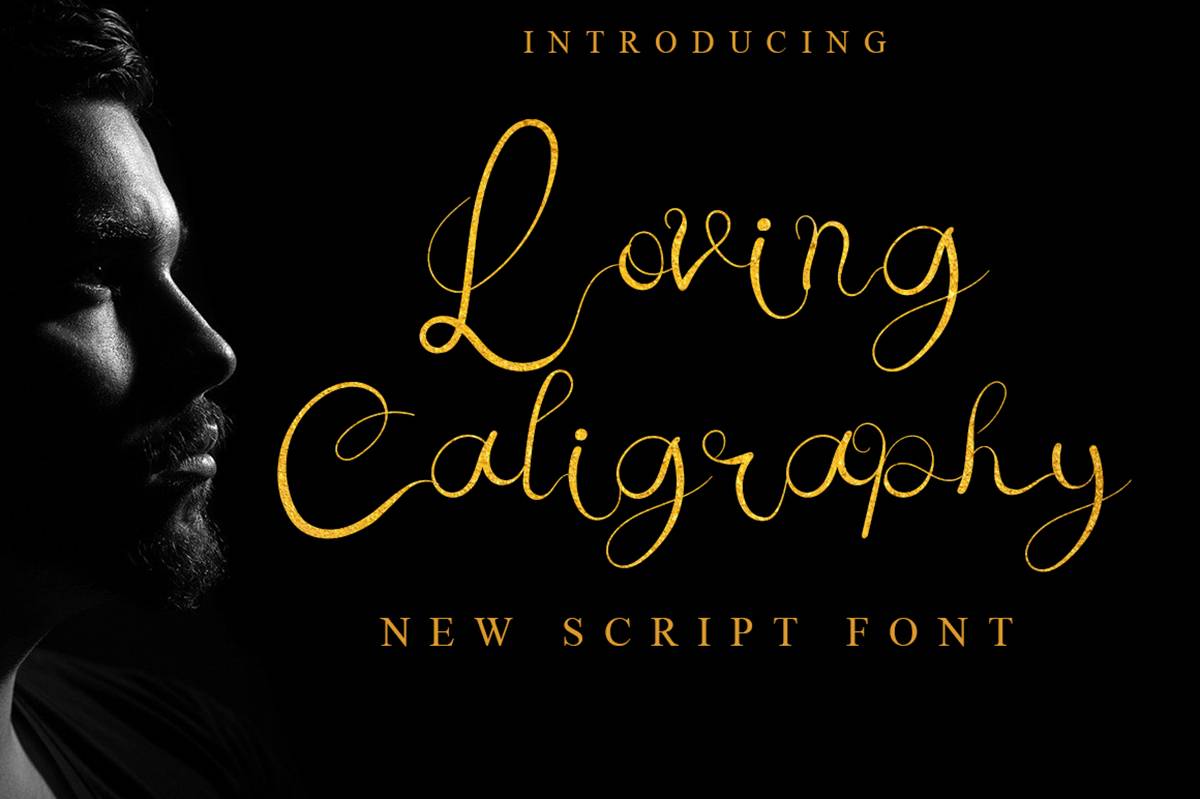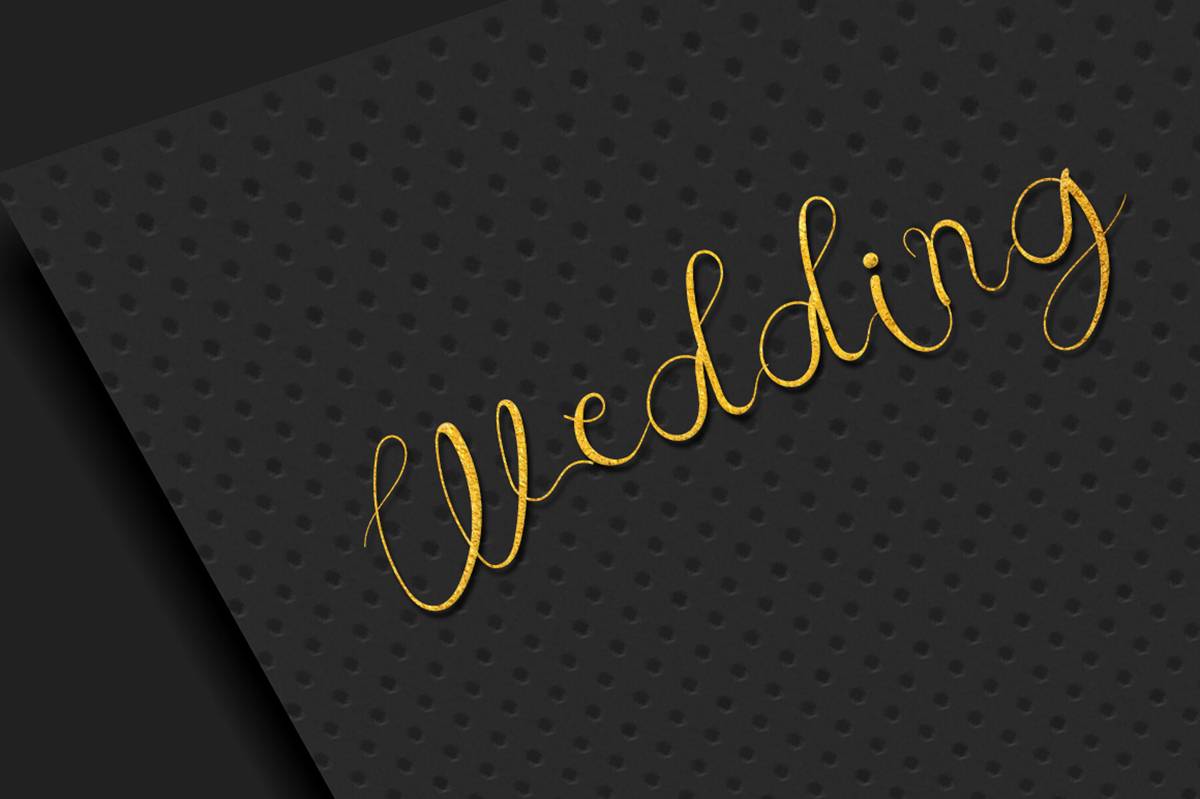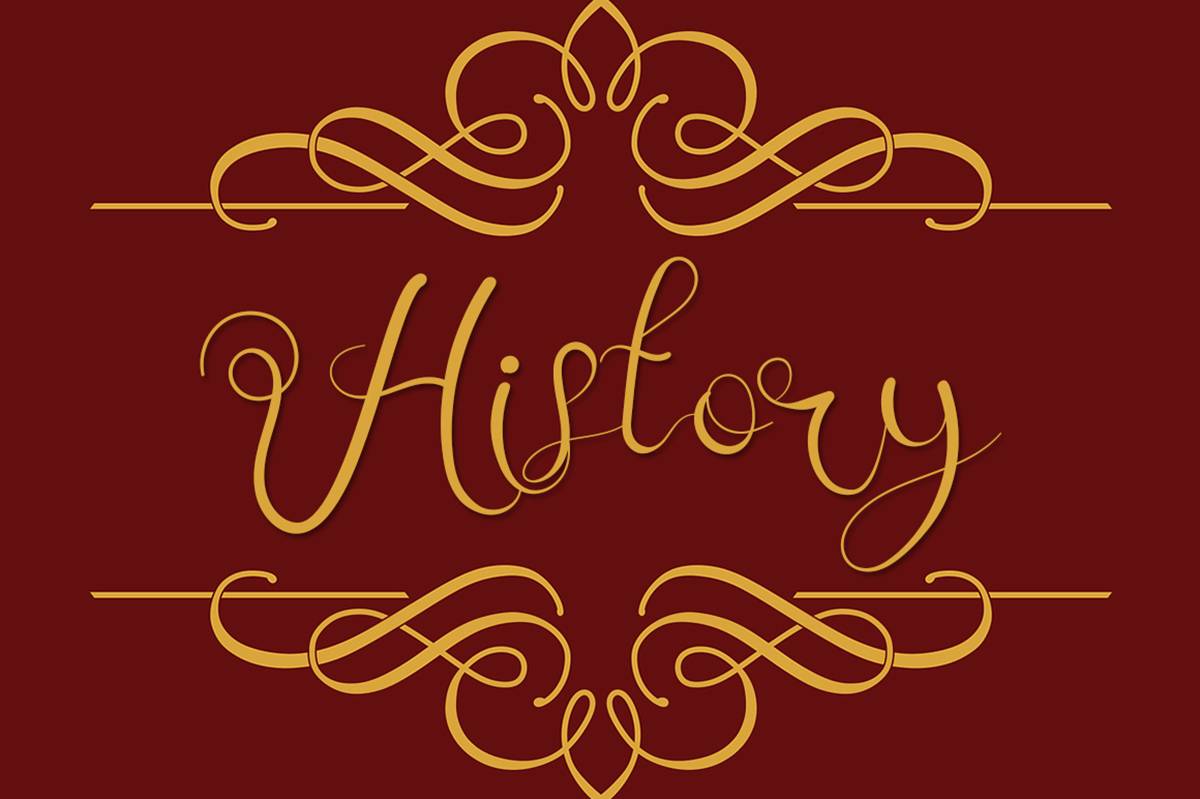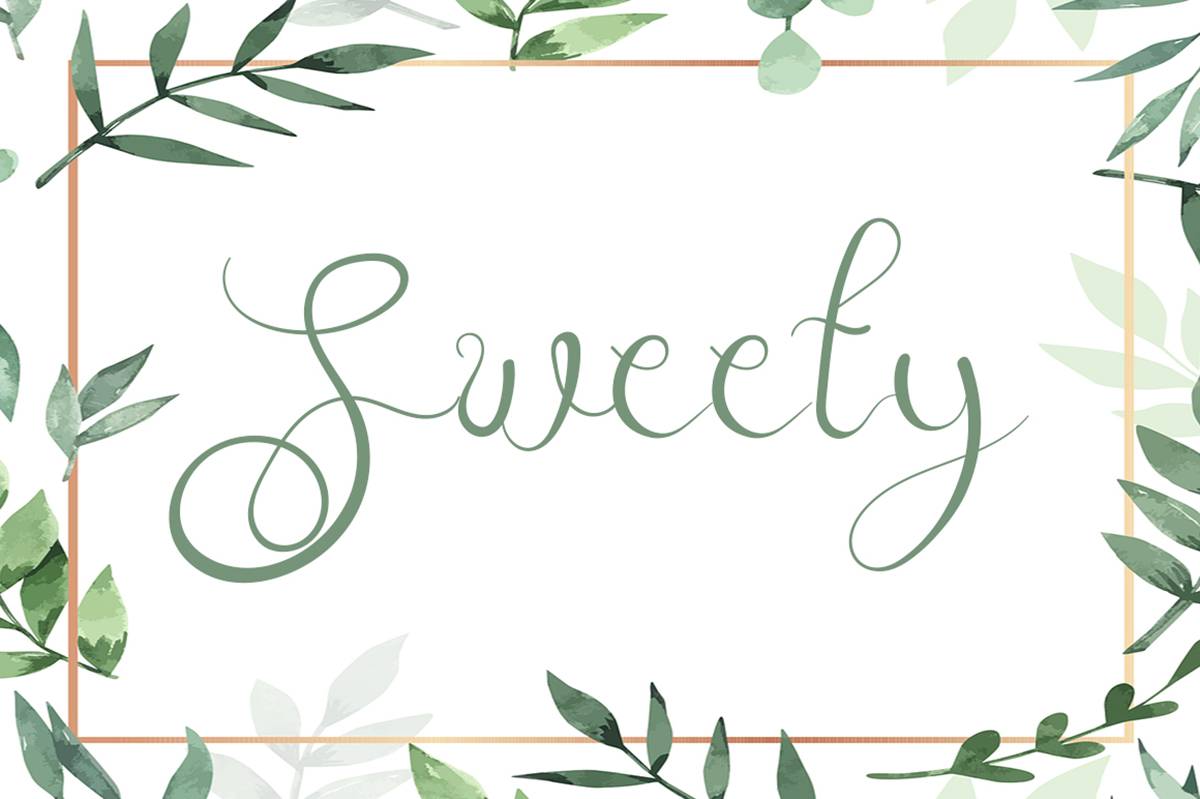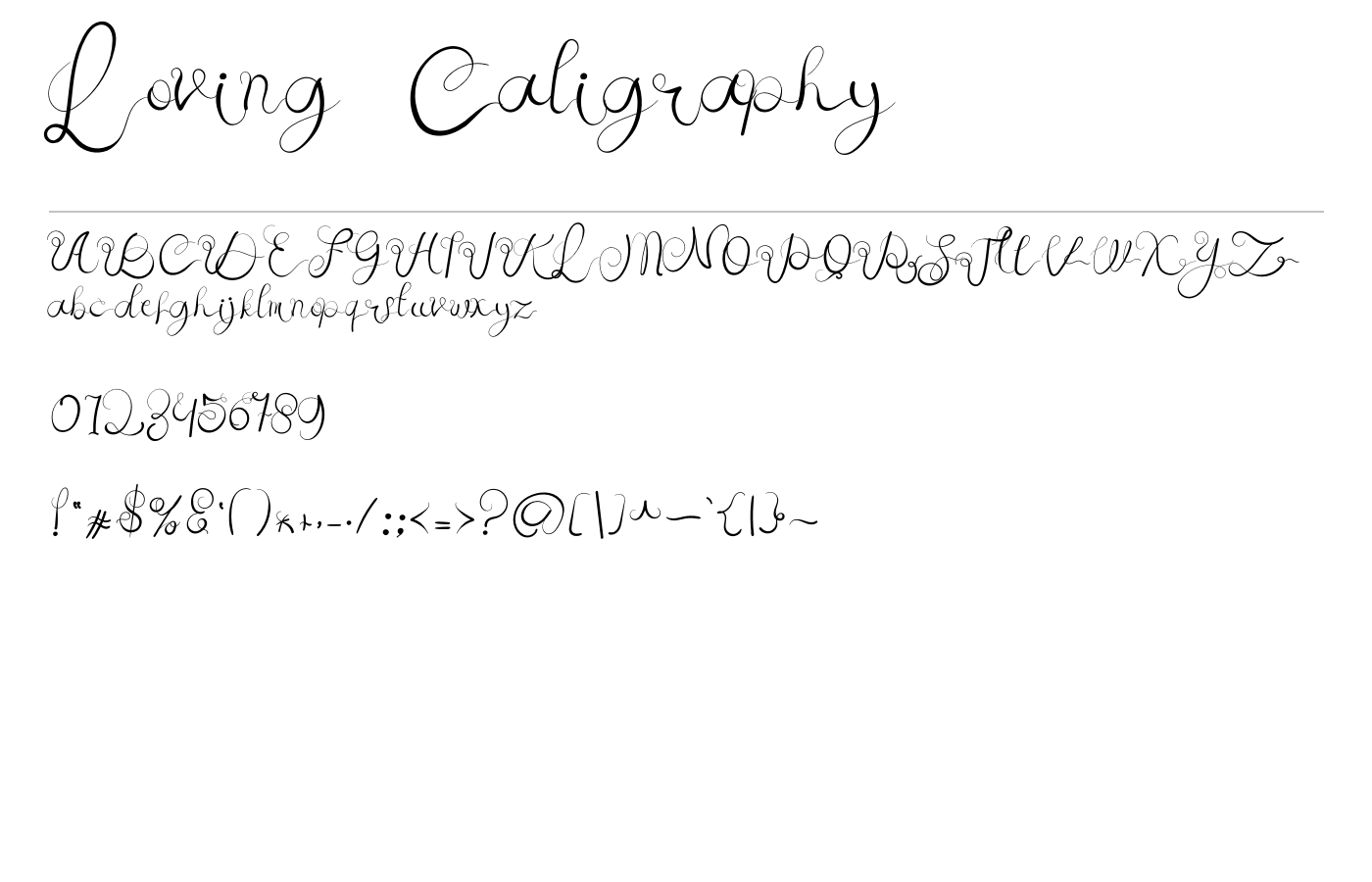
Loving Calligraphy is an elegant script font characterized by its delicate, flowing strokes and ornate swashes that evoke a hand-drawn, romantic feel. With its light weight and intricate loops, it is perfect for wedding invitations, greeting cards, and branding that seeks a sophisticated, feminine touch. This font adds a graceful and intimate personality to any design, making it ideal for projects that require a stylish, handcrafted look.
Loving Caligraphy Font
About Loving Caligraphy Font